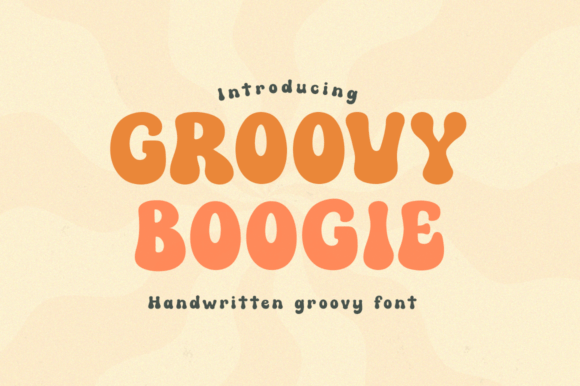
Groovy Boogie Font: A Playful and Cheerful Retro-Inspired Typeface
The Groovy Boogie font is a handwritten typeface that embodies the spirit of fun and playfulness, evoking the nostalgia of 1970s-era typography with a modern twist. Its bold, rounded, and slightly irregular letters exude a warm, handmade feel that’s perfect for creating a lively and energetic atmosphere in various design projects.
Design Characteristics
The Groovy Boogie font boasts a unique set of design characteristics that make it stand out from other typefaces. Some of its notable features include:
- Bold and rounded letters: The font’s letters are designed with a bold and rounded style, giving them a friendly and approachable feel.
- Slightly irregular shapes: The letters have a slightly irregular shape, which adds to their handmade and organic feel.
- Retro vibe: The font’s design is inspired by 1970s-era typography, giving it a distinct retro vibe that’s perfect for creating a nostalgic atmosphere.
- Modern touch: Despite its retro inspiration, the Groovy Boogie font has a modern twist that makes it suitable for contemporary design projects.
Typographic Inspiration
The Groovy Boogie font draws inspiration from the typography of the 1970s, an era known for its bold and playful typographic styles. The font’s design is influenced by the iconic typography of the time, which often featured bold, rounded, and irregular shapes.
Some of the notable typographic styles that inspired the Groovy Boogie font include:
- Psychedelic typography: The 1970s were known for their psychedelic typography, which often featured bold, colorful, and playful lettering.
- Groovy typography: The font’s design is also influenced by the “groovy” typography of the 1970s, which often featured rounded and irregular shapes.
Usage and Applications
The Groovy Boogie font is a versatile typeface that can be used in a variety of design projects, including:
- Branding and logos: The font’s bold and playful style makes it perfect for creating memorable logos and brand identities.
- Posters and flyers: The font’s energetic and lively feel makes it ideal for creating eye-catching posters and flyers.
- Social media graphics: The font’s modern and playful style makes it suitable for creating engaging social media graphics.
- Packaging design: The font’s bold and rounded style makes it perfect for creating eye-catching packaging designs.
Why Choose Groovy Boogie Font?
There are several reasons why you should consider using the Groovy Boogie font in your design projects:
- Unique and distinctive: The font’s bold and playful style makes it stand out from other typefaces.
- Versatile: The font can be used in a variety of design projects, from branding and logos to posters and social media graphics.
- Easy to read: Despite its bold and playful style, the font is easy to read and understand.
- Modern and retro: The font’s design combines modern and retro elements, making it perfect for creating a unique and nostalgic atmosphere.
Tips for Using Groovy Boogie Font
Here are some tips for using the Groovy Boogie font effectively in your design projects:
- Use it sparingly: The font’s bold and playful style can be overwhelming if used excessively. Use it sparingly to create a greater impact.
- Pair it with other fonts: The Groovy Boogie font can be paired with other fonts to create a unique and interesting typographic combination.
- Experiment with colors: The font’s bold and playful style makes it perfect for experimenting with different colors and color combinations.
The Groovy Boogie font is a playful and cheerful typeface that’s perfect for creating a fun and energetic atmosphere in various design projects. Its bold, rounded, and slightly irregular letters exude a warm, handmade feel that’s reminiscent of 1970s-era typography. With its versatility, unique design, and ease of use, the Groovy Boogie font is an excellent choice for designers looking to add a touch of nostalgia and playfulness to their designs.